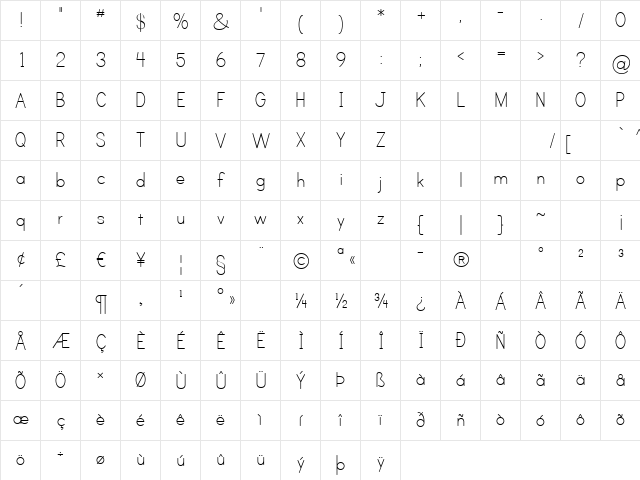
Print Clearly Regular Font Preview
Print Clearly Regular
Design Context for Print Clearly Typeface
Print Clearly offers clean, dependable letterforms without strong stylistic allegiance, making it a practical choice for designers who need flexibility.
Pro Tip: Use Print Clearly in both headline and body roles to test its range before committing to a single application.